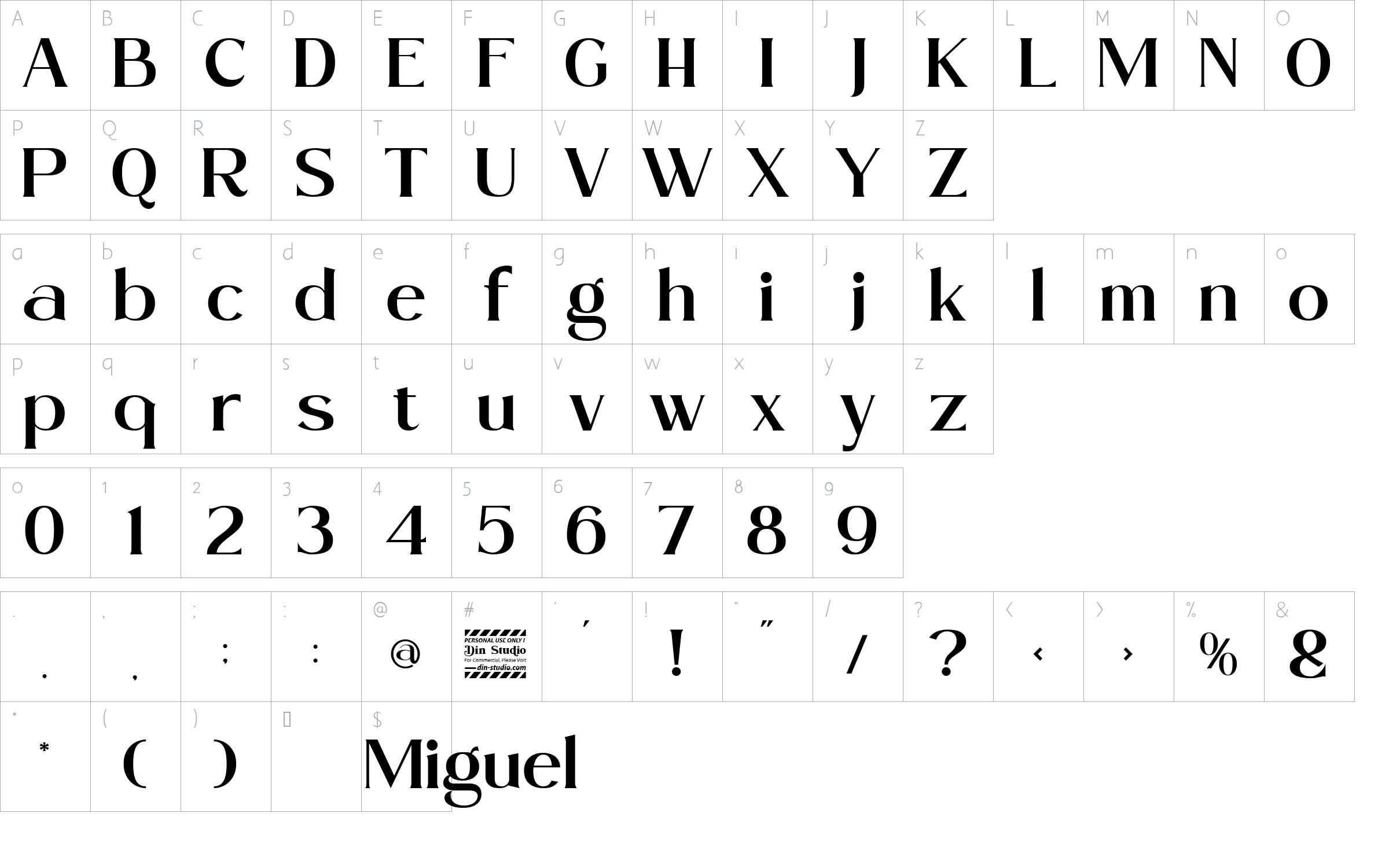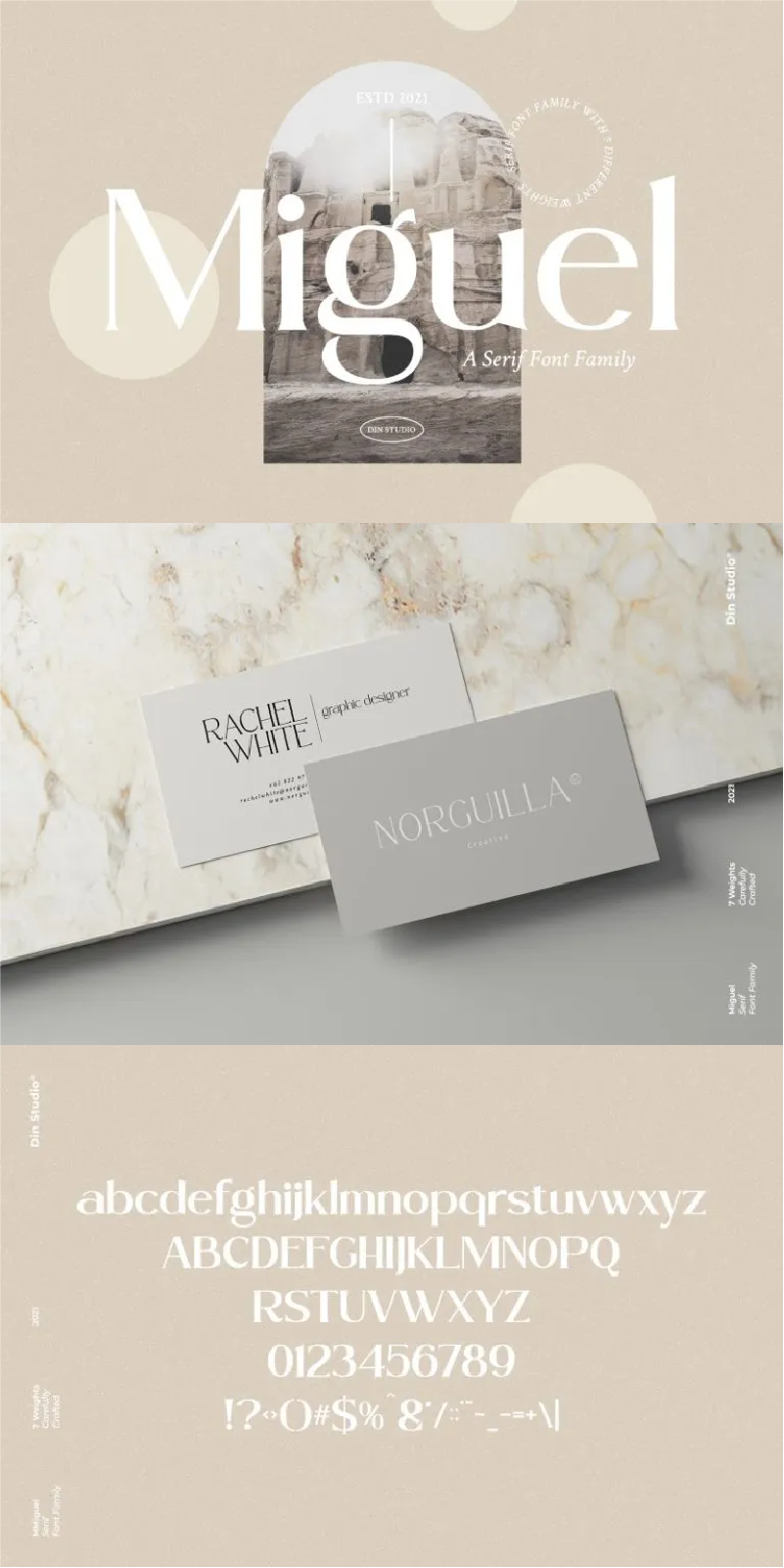
Miguel Font
About Miguel
Miguel – A Serif Font Family. With this package you will get many options to maximize your designs with stylish fonts. The variety of weights provide a range of choices that will help you find the best typographic character for your project. This font can be used for a host of different content needs and projects. It is perfect to be used on your website, for your social media branding and post, invitation, Pinterest banners, printed products, DIY projects, t-shirt, and so much more!